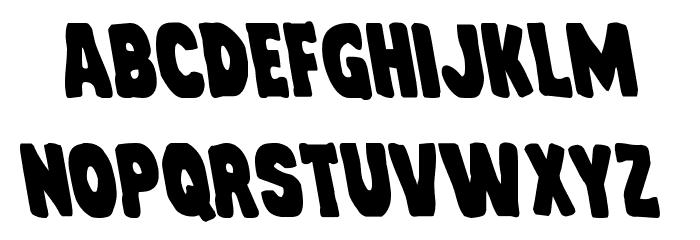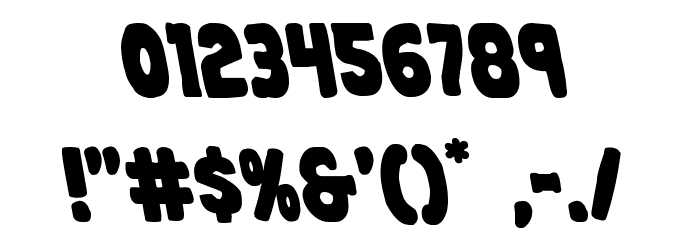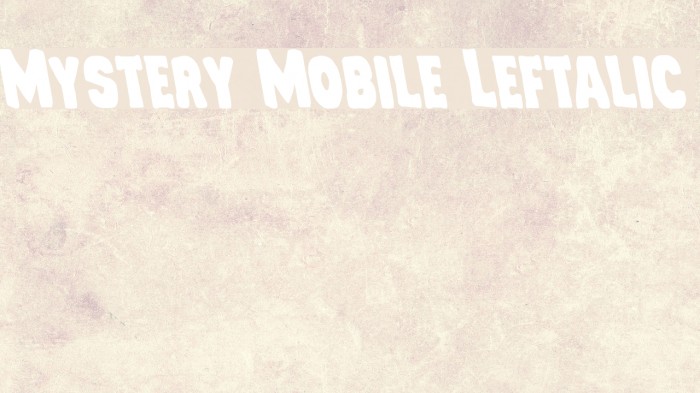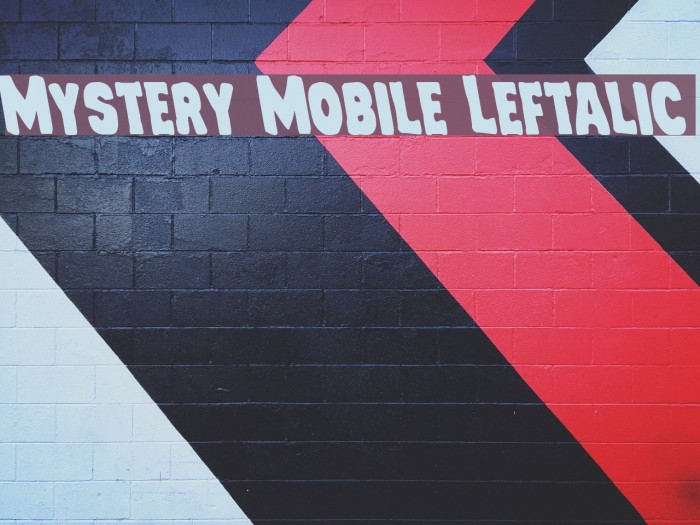
Mystery Mobile Leftalic Font
This font features a bold and playful style with a distinct leftward slant, giving it a dynamic and energetic appearance. The characters are thick and rounded, contributing to a sense of friendliness and approachability. The uppercase and lowercase letters maintain a consistent weight, ensuring readability while adding a touch of whimsy. The numbers and special characters follow the same bold and rounded design, making them easily distinguishable. This font's unique style is perfect for projects that require a fun and informal touch.
A bold, playful font with a leftward slant and rounded characters.
- Proposed Projects: Ideal for children's books, playful branding, event posters, and creative social media graphics.
- Overall Style: Playful and Energetic